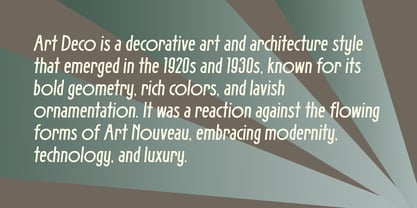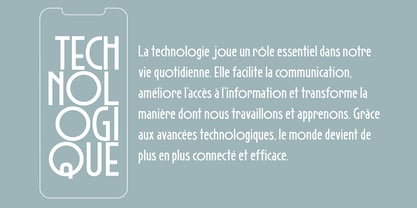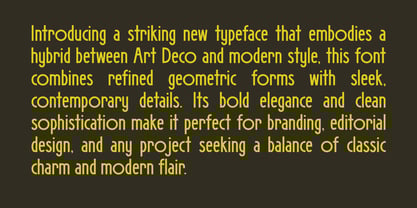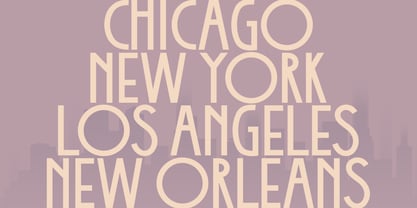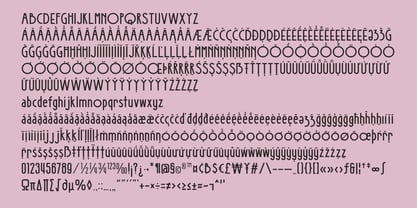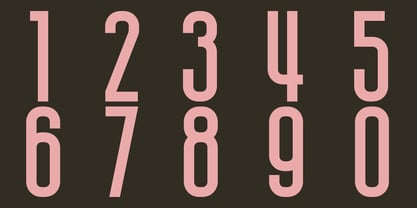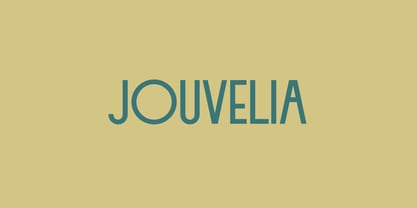
Jouvelia
by Outerend
Introducing a striking new typeface, "Jouvelia," that embodies a hybrid between Art Deco and modern style, these fonts combine refined geometric forms with sleek, contemporary details. Its bold elegance and clean sophistication make it perfect for branding, editorial design, and any project seeking a balance of classic charm and modern flair.
Designers: Taka Ikari
Foundry: Outerend